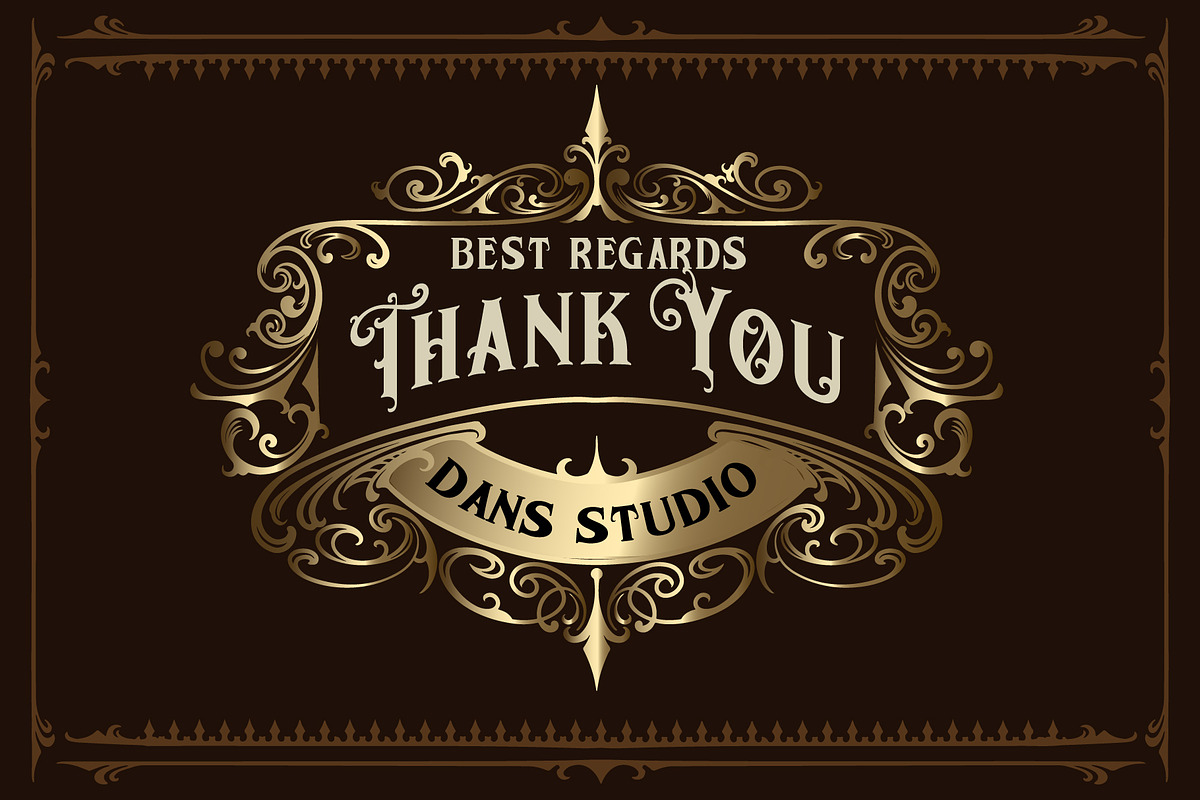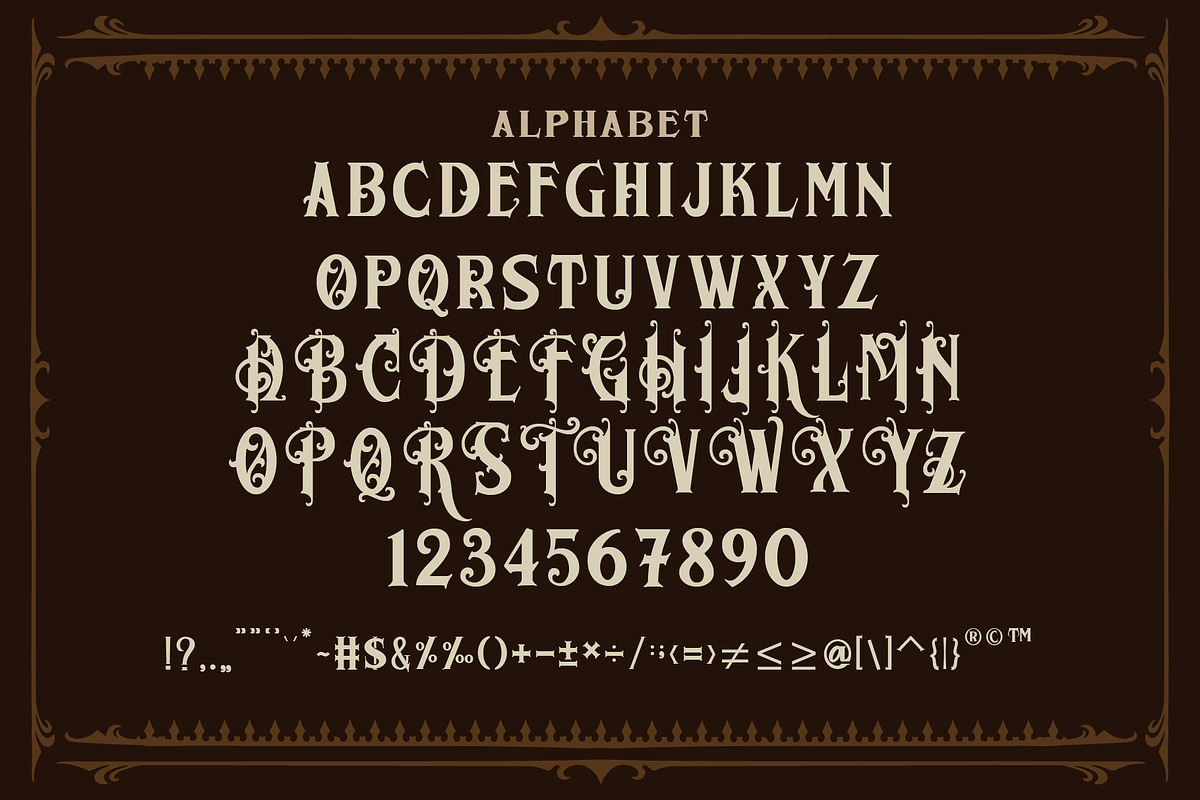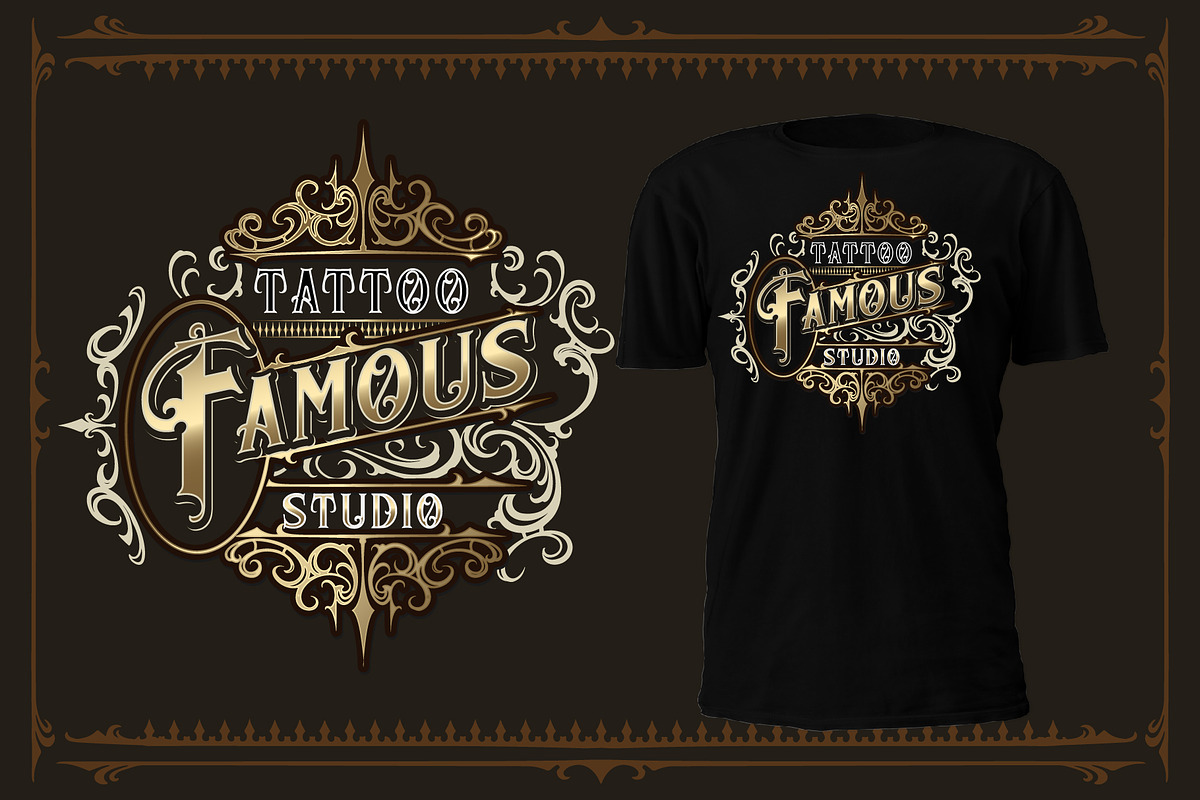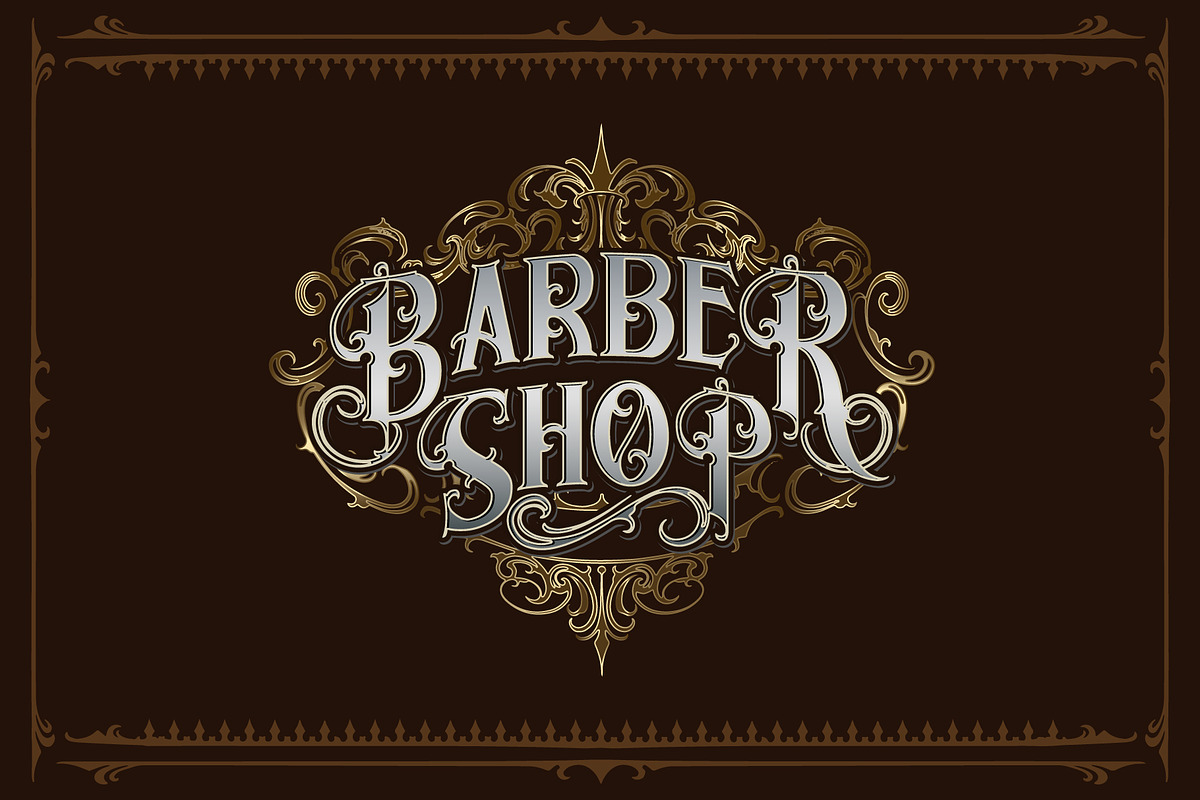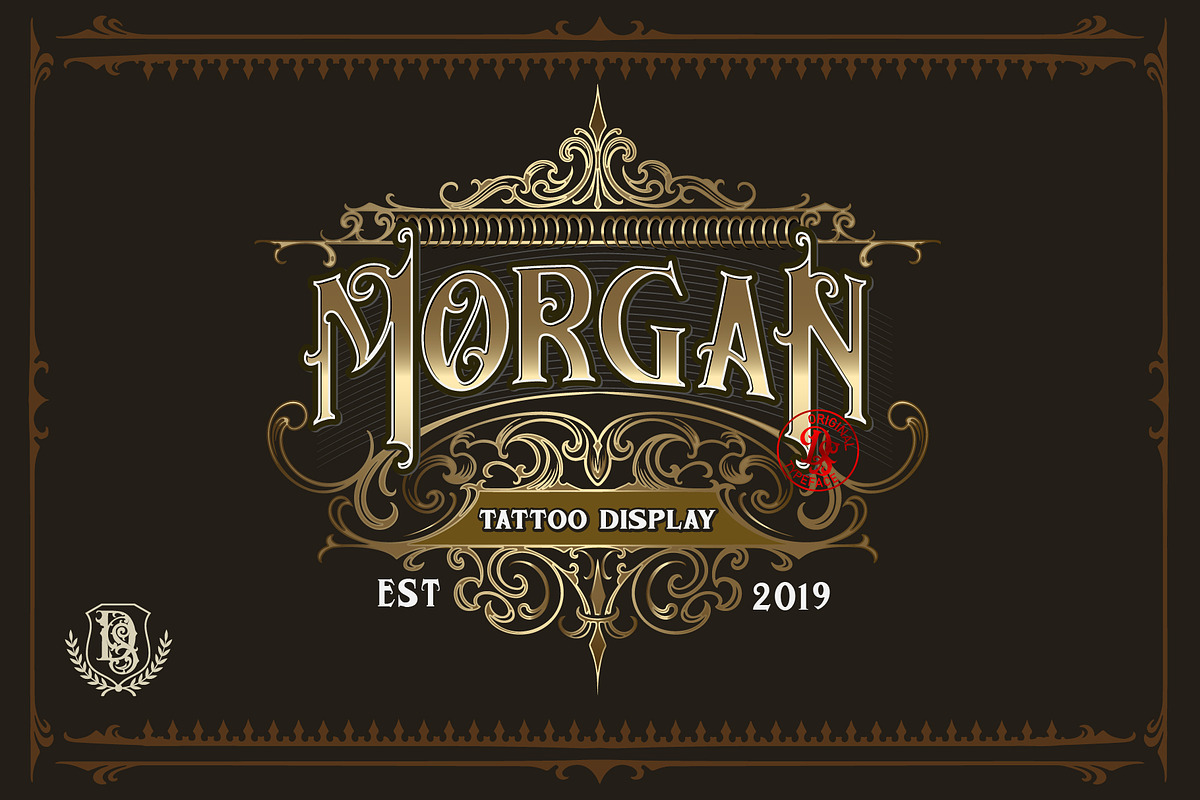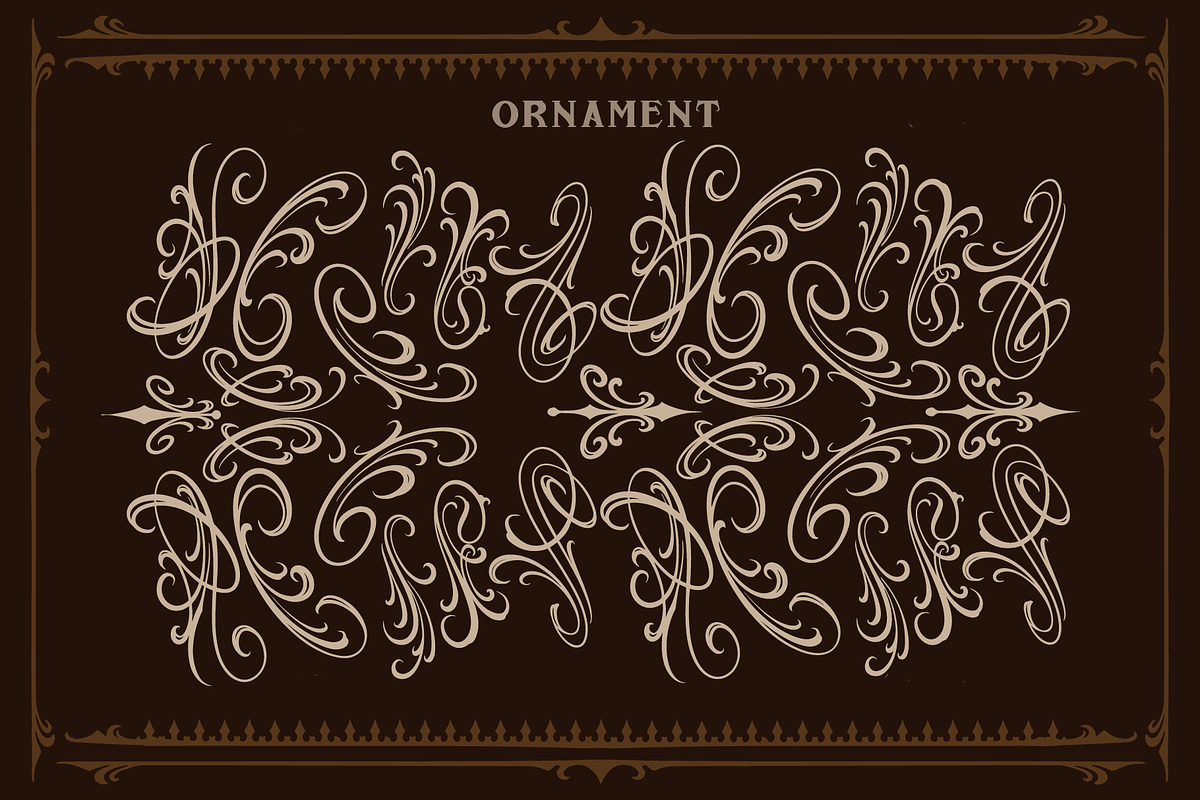
MORGANTATTOO + EXTRAS
Dansdesign Proudly present MORGANTATTOO + EXTRAS Tattoo font, This font is made with references to various letters that I combine and design with my style.
MORGANTATTOO + EXTRAS are great and usefull for product logo, poster title, headline, packaging, badge, wedding card logo, clothing brand logo,Vintage design and much more